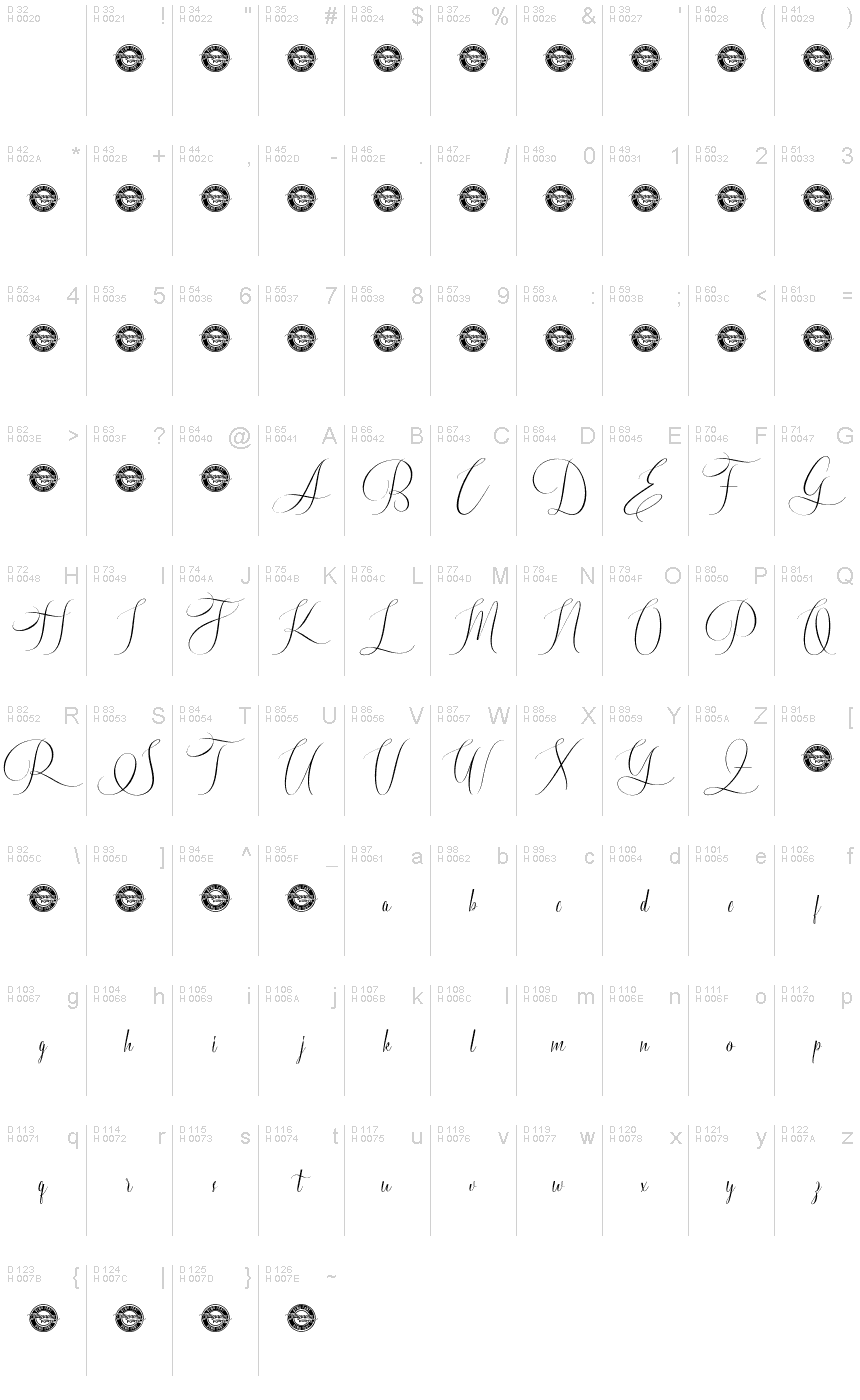
Sinta Magenta Demo
Sinta Magenta is a light and narrow script font designed by Widiyanti & Sarah SP. With its beautiful calligraphy style, it's perfect for invitations, logos, and other creative projects.